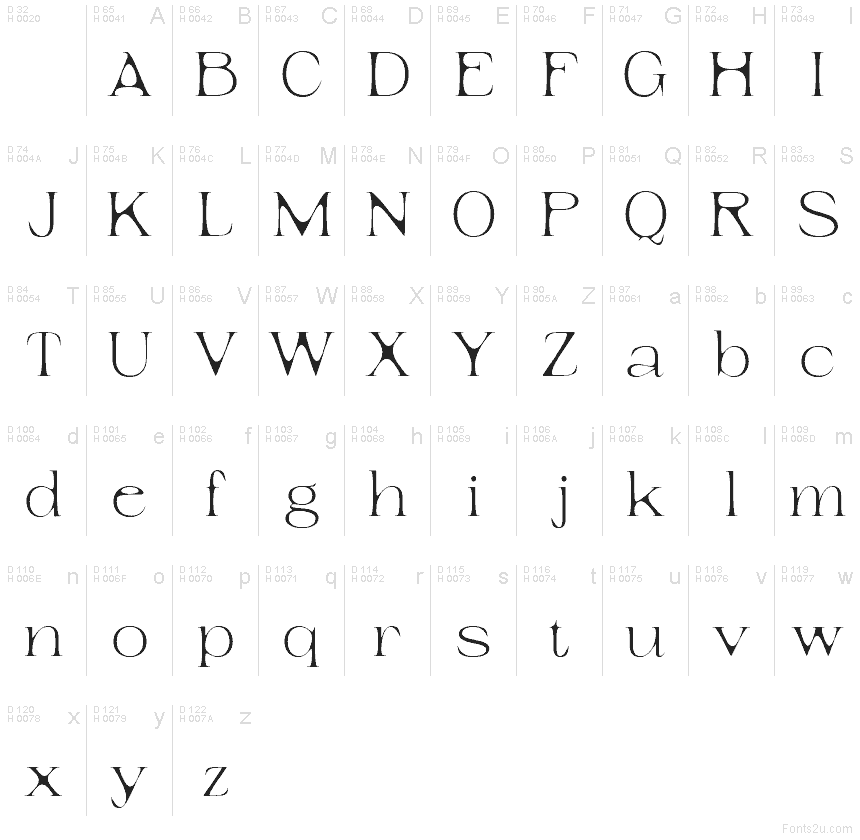
CSRamseyDrawn-Regular Demo
CS Ramsey Drawn font by Craft Supply Co. stands out with its etched, weathered edges and elegant, high-contrast strokes that feel hand-inked and slightly starved at the tips. Part of the CS Ramsey family, this is a free regular eroded serif display font that blends refined proportions with tactile imperfection—sleek curves meet grainy, irregular contours, giving headlines an artful patina without sacrificing readability.
Using CS Ramsey Drawn, you get instant character for boutique branding, wine or craft-beverage labels, editorial titles, posters, book covers, and premium packaging. The rhythm is poised yet human, so it carries upscale nostalgia rather than fake grunge. This free font shines when set large; pair it with a clean grotesque sans for body copy to let the hand-drawn texture breathe.